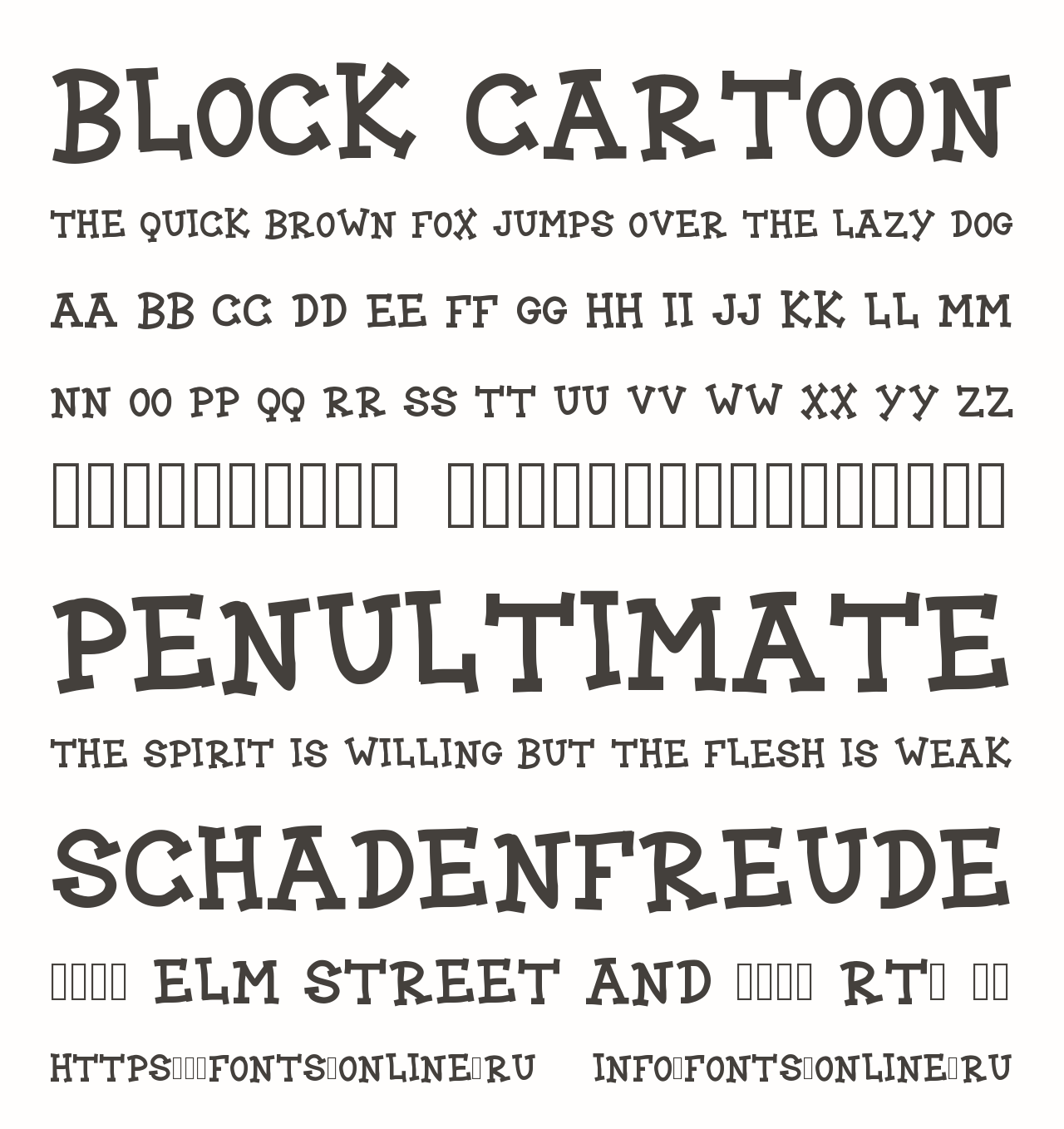
Cartoon Block Old Bold Font . Cartoon block old bold ver 1.000 𑁋 modified at feb 10, 2018. Cartoonnetwork font family designed by unknown designer has a total of 1 different styles. Use for cartoon network logos. From cartoon blocks by galdino otten fonts. With this tool, you can easily copy your desired text in svg format. Every font is free to download! Looking for bold cartoon fonts? Click to find the best 25 free fonts in the cartoon block style. Looking for cartoon block fonts? 687,085 downloads (4 yesterday) 3 comments free for personal use. Click to find the best 5 free fonts in the bold cartoon block style. Unleash your creativity with our vast collection of free bold, cartoon fonts. 134,508 downloads (3 yesterday) 2 comments free for personal use. Every font is free to download! Every font is free to download!
Cartoon Blocks font
Vector of Modern Bold Font and Alphabet. Vintage Alphabet Vector Stock Cartoon Block Old Bold Font Every font is free to download! With this tool, you can easily copy your desired text in svg format. Looking for cartoon block fonts? Use for cartoon network logos. Click to find the best 25 free fonts in the cartoon block style. Click to find the best 326 free fonts in the bold cartoon style. Every font is free to. Cartoon Block Old Bold Font.
Modern bold font and vintage alphabet Royalty Free Vector Cartoon Block Old Bold Font From cartoon blocks by galdino otten fonts. Every font is free to download! Looking for bold cartoon fonts? Cartoon block old bold ver 1.000 𑁋 modified at feb 10, 2018. Use for cartoon network logos. With this tool, you can easily copy your desired text in svg format. Every font is free to download! Click to find the best 25. Cartoon Block Old Bold Font.
Premium Vector Vintage bold font set Cartoon Block Old Bold Font Use for cartoon network logos. 134,508 downloads (3 yesterday) 2 comments free for personal use. Click to find the best 25 free fonts in the cartoon block style. Every font is free to download! Click to find the best 5 free fonts in the bold cartoon block style. Every font is free to download! Looking for bold cartoon block fonts?. Cartoon Block Old Bold Font.